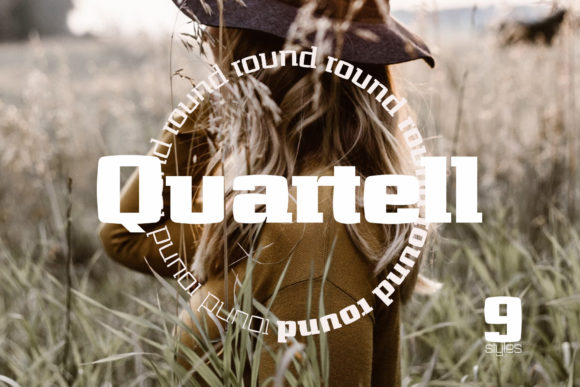
Embark on a typographic adventure with Quartell Round, the bold and captivating slab serif font that exudes western charm and a dash of retro flair. Inspired by the rugged landscapes and spirited culture of the Wild West, Quartell Round is a font that speaks of freedom, adventure, and individuality. Step into the world of Quartell Round and let your designs echo the spirit of the frontier.
Feel the power of Quartell Round's distinctive letterforms, meticulously crafted to make a statement. The thick, sturdy serifs evoke a sense of strength and stability, while the rounded edges add a touch of playfulness and approachability. This unique combination creates a font that is both visually striking and highly legible, ensuring your designs command attention without compromising readability.
With Quartell Round, you'll discover a font that's as versatile as the frontier itself. Its western roots make it a perfect choice for branding projects seeking a touch of rugged authenticity. Whether you're designing posters, logos, or packaging for products inspired by the Wild West, Quartell Round will infuse your designs with an undeniable sense of adventure.
But Quartell Round's versatility doesn't stop there. Its bold personality and retro charm make it equally at home in designs with a vintage or nostalgic vibe. Create stunning posters, flyers, and social media graphics that evoke the golden age of the Wild West or capture the essence of classic Americana.
Let your creativity run wild with Quartell Round. Experiment with different colors, textures, and layouts to create designs that reflect your unique style and vision. Whether you're a seasoned designer or just starting your typographic journey, Quartell Round is the perfect font to add a touch of adventure and originality to your projects.